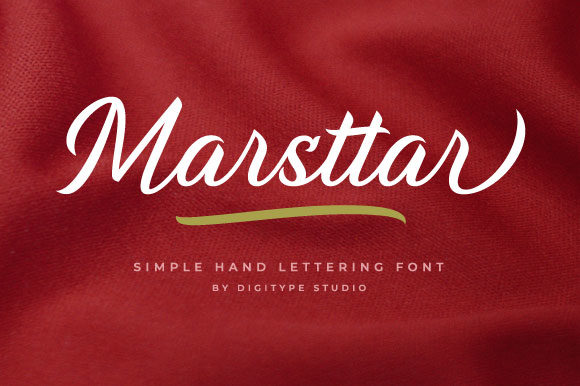
Introducing Marsttar: A Majestic Script Font That Transforms Your Designs Into Masterpieces
In a world of ordinary fonts, Marsttar emerges as a radiant star, illuminating your creative projects with its celestial charm. This exquisite script font is meticulously crafted by the talented artisans at Digitype Studio, who poured their passion and expertise into every curve and stroke. With Marsttar, you possess the power to transcend the mundane and elevate your designs to new heights.
Journey Through the Enchanting World of Marsttar:
Marsttar is more than just a font; it's an artistic expression that captivates the senses. Its delicate lines dance across the page like a gentle breeze, evoking a sense of timeless elegance. Whether you're designing wedding invitations, branding materials, or creating captivating social media posts, Marsttar weaves its magic, leaving an unforgettable impression.
Discover the Limitless Possibilities:
With Marsttar, the possibilities are endless. Its versatile nature allows it to adapt seamlessly to a wide range of projects. From heartfelt love letters to enchanting book covers, Marsttar transforms words into art, amplifying the impact of your message. Unleash your creativity and watch as your designs blossom into masterpieces, captivating audiences with their ethereal beauty.
Capture the Essence of Timeless Elegance:
Marsttar embodies the essence of timeless elegance, effortlessly adding a touch of sophistication to your designs. Its graceful curves and flowing lines evoke a sense of nostalgia, harking back to a bygone era of romance and charm. Whether you're designing a vintage-inspired logo or creating a whimsical invitation, Marsttar transports you to a world of timeless beauty.
Ignite Your Imagination with Marsttar:
Marsttar is the spark that ignites your imagination, setting your creativity ablaze. Its enchanting aura inspires you to push boundaries and explore new realms of design. As you immerse yourself in the world of Marsttar, you'll discover a hidden wellspring of inspiration, propelling your projects to new heights.
Embrace the Beauty of Handcrafted Charm:
Marsttar is a labor of love, meticulously handcrafted by skilled artisans who poured their heart and soul into every detail. Each stroke, each curve, each nuance is a testament to their artistry. When you choose Marsttar, you're not just downloading a font; you're embracing a piece of art that will add a touch of magic to your designs.